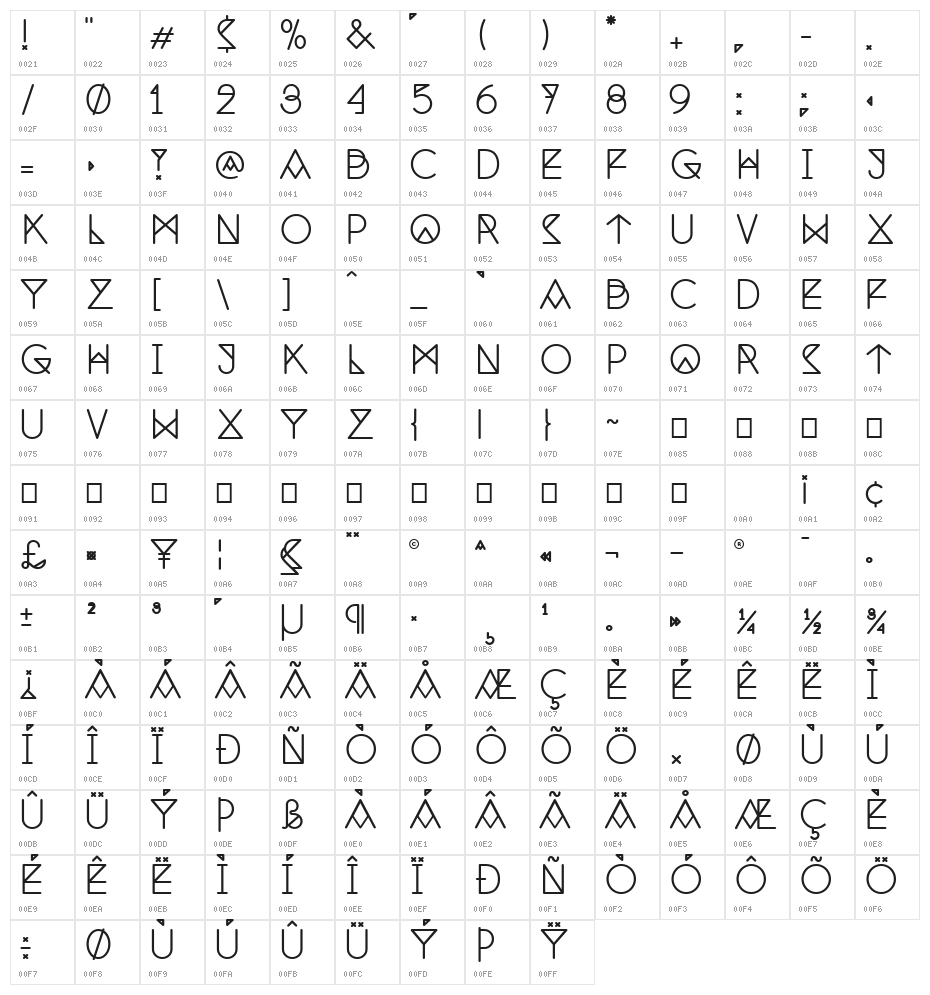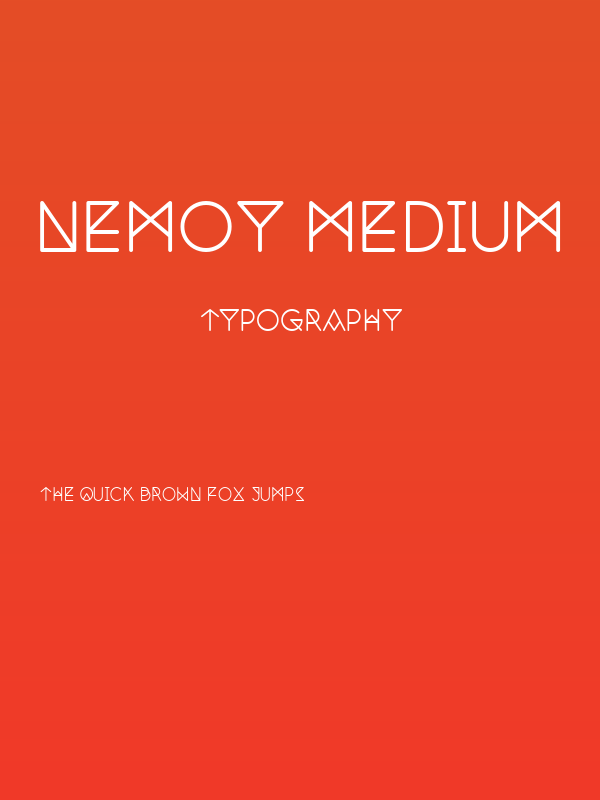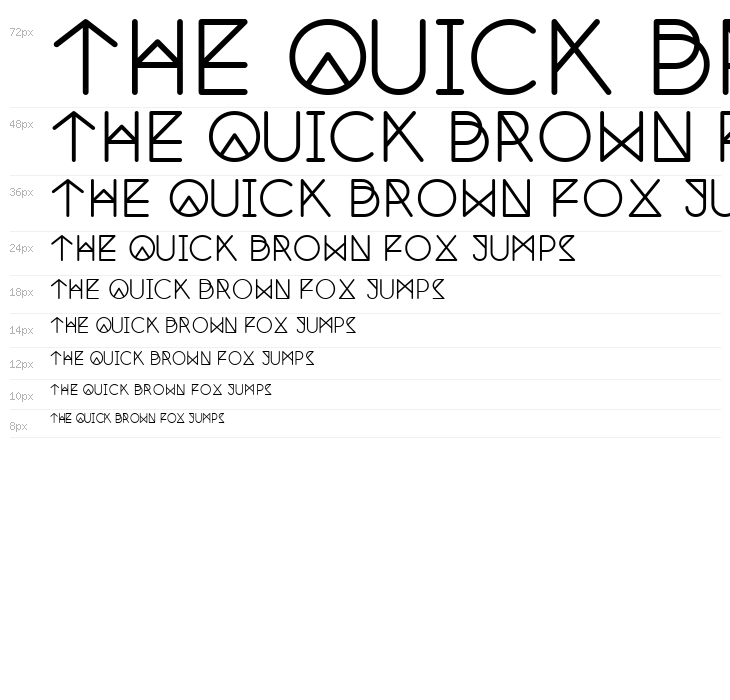
Nemoy Medium Font
Nemoy Medium Description
This font features a futuristic and geometric design, characterized by its clean lines and angular shapes. The uppercase letters are distinct with sharp angles and unique forms, resembling a blend of traditional and modern styles. The lowercase letters maintain a consistent geometric theme, providing a cohesive look. Numbers and special characters follow the same design principles, ensuring uniformity across all glyphs. The overall appearance is sleek and modern, making it suitable for projects that require a contemporary and innovative aesthetic.